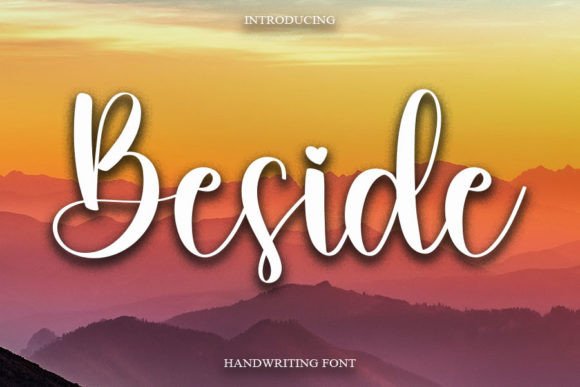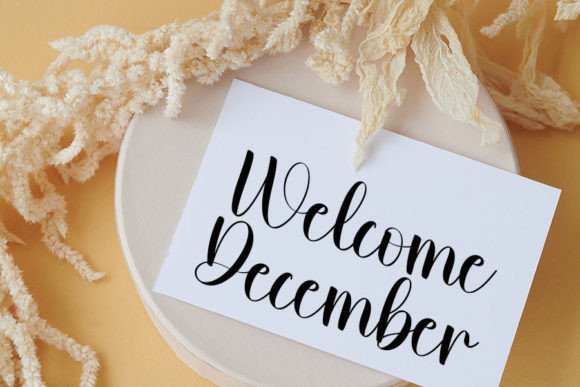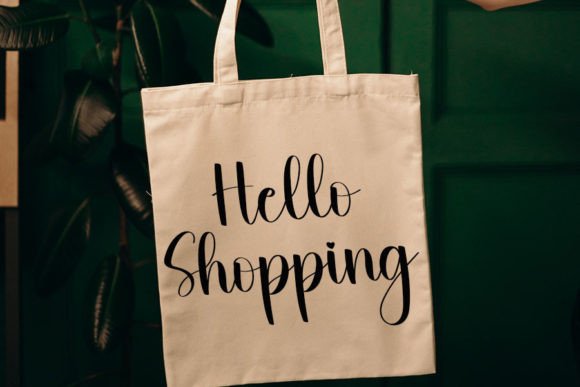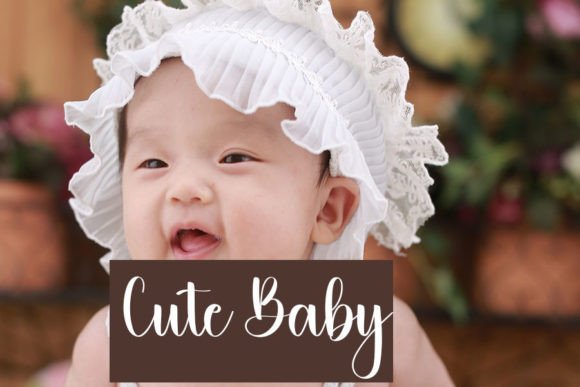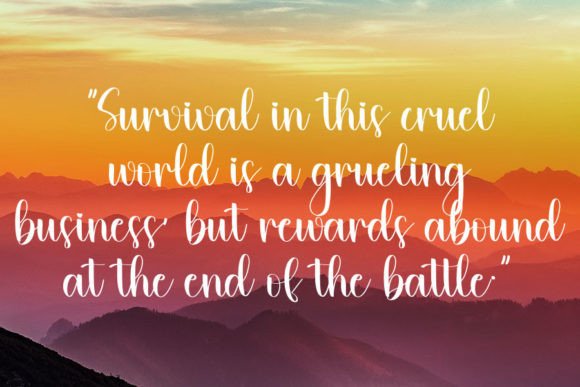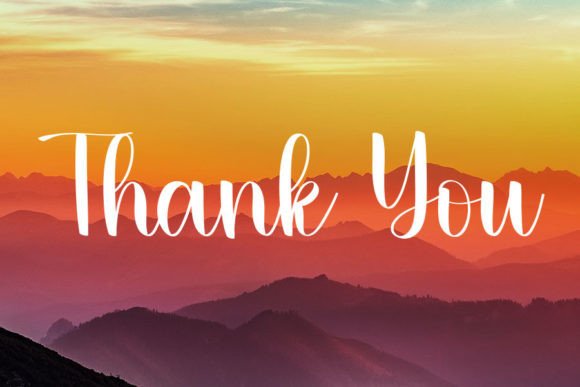
Beside Font
About Beside Font
The Beside Font download is your perfect companion for adding warmth and charm to any creative project. With its fun and friendly handwritten style, Beside brings a playful yet approachable tone to every design. Whether you’re crafting personalized items or working on digital graphics, this typeface is versatile and easy to love.
Designed to emulate the natural flow of handwriting, Beside offers a casual and joyful vibe. Its clear readability and soft curves make it suitable for both personal and commercial use, enhancing your work with authenticity and character.
Where to Use Beside Font
The Beside Font download is a go-to option for a wide variety of applications, including:
• DIY craft projects and labels
• Digital designs and presentations
• Social media graphics and captions
• Journals, planners, and scrapbooks
Its rounded forms and smooth flow ensure it looks great on both screen and print.
Features of Beside Font
Here’s why you’ll love using the Beside Font download:
• Handwritten, casual, and cheerful design
• Easy to read on any background
• Ideal for lighthearted and personal themes
• Works beautifully in Cricut or Silhouette projects
• Adds a touch of friendliness to every word
No matter the occasion—birthdays, holidays, or everyday creations—this font brings a personal touch that feels warm and inviting.